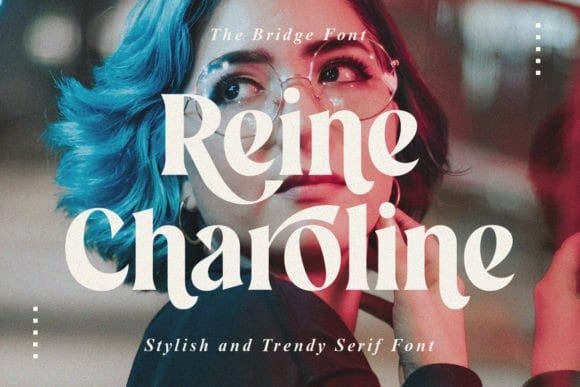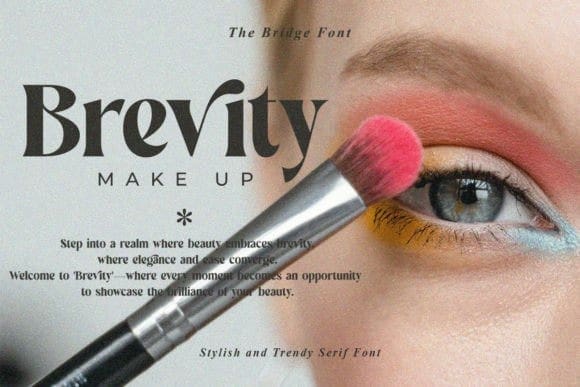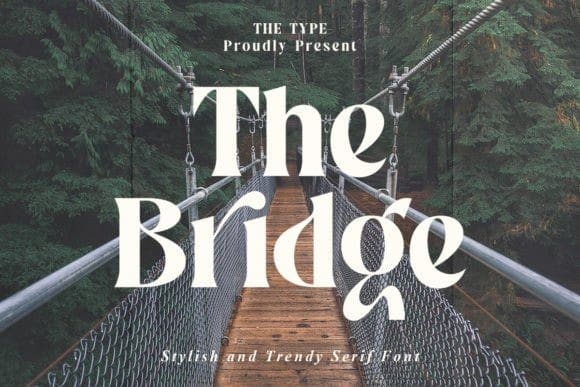
The Bridge Font
The Bridge Font – a modern serif font Inspired by Stylish Trendy Serif. This font can look more classic (conservative) serif, which is perfect for texts. So same he can be more expressive, playing, and more modern with alternative substitutes and ligatures, try to play with them and you will get uniqueness in your project.